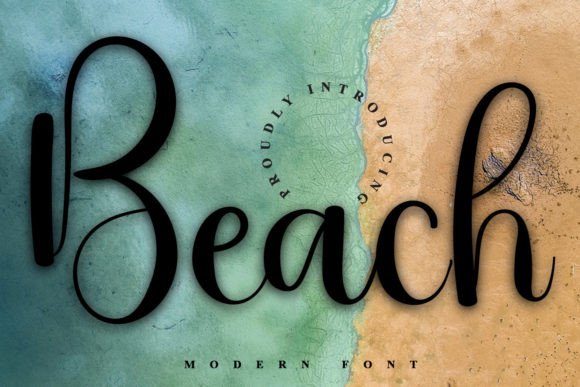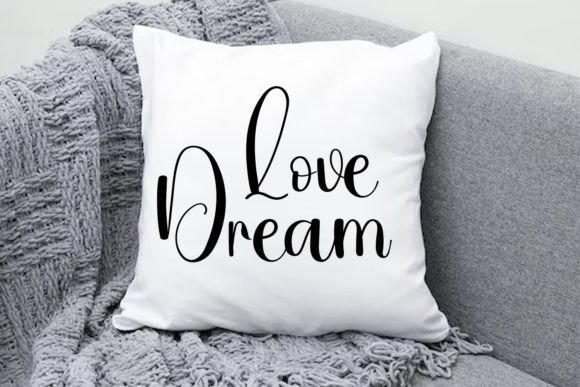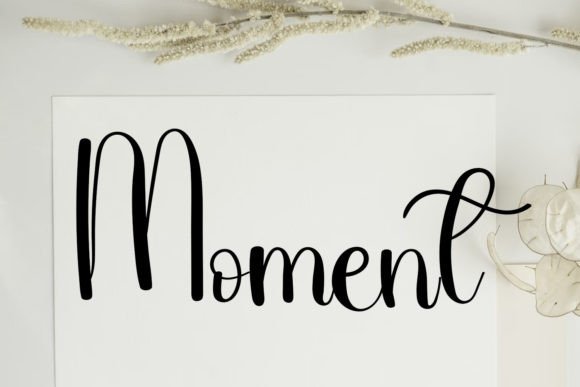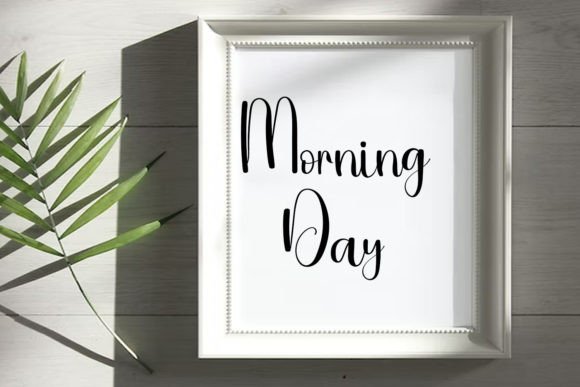
About the Beach Font
Welcome to the world of Beach Font, a typeface that will inspire your next great project. Beach is a fresh and beautiful font, good for your design purposes such as youtube banners, cover logo mockups, wedding invitations, flyers, and crafts. By using this font your business will progress and develop.
Beach Font Usage Examples
Beach Font Example